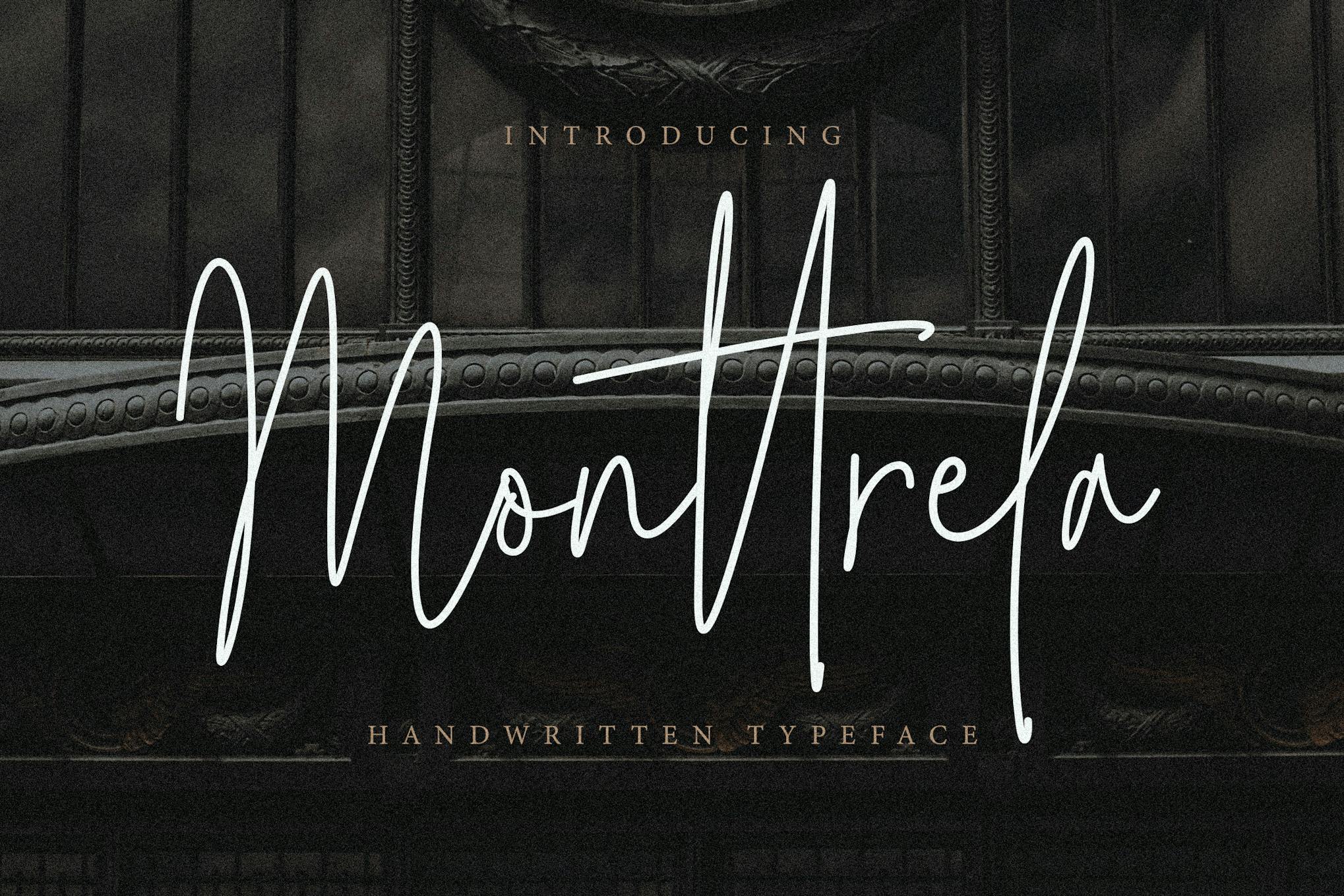
Monttrela Handwritten Wedding Font
The Monttrela Handwritten Wedding Font excels in personal design applications including intimate wedding invitations, handwritten bridal branding, personal ceremony logos, handcrafted product packaging, intimate business cards, personal portfolios, handwritten greeting cards, personal social media graphics, intimate event signage, and handcrafted marketing materials. Its handwritten style makes it perfect for projects requiring personal elegance that communicates intimacy and establishes handcrafted brand positioning with audiences seeking personal wedding experiences and handwritten sophistication.
What makes the Monttrela Handwritten Wedding Font truly exciting is its exceptional ability to capture the personal beauty and intimate charm of handwritten weddings through lovingly crafted letterforms. The font features flowing, handwritten strokes with personal flourishes and intimate proportions that create a distinctly personal appearance. Each character displays remarkable attention to handwritten detail with intimate curves, personal connections, and handcrafted spacing that give text a beautifully personal, hand-lettered quality. The font's handwritten character and intimate rhythm create an atmosphere of personal elegance while maintaining handcrafted sophistication and wedding authenticity.
The Monttrela Handwritten Wedding Font family typically includes regular weight with extensive character coverage, featuring uppercase and lowercase letters, numerals, punctuation marks, and international characters. The typeface often incorporates stylistic alternates, contextual ligatures, and handwritten swashes that enhance its signature intimacy. These additional elements provide designers with creative flexibility to customize text appearance and achieve more natural-looking personal handwriting that reflects the font's intimate and handcrafted character.
This personal signature font distinguishes itself through its remarkable balance of handwritten charm and sophisticated elegance. Unlike impersonal or digital fonts that lack intimate appeal, Monttrela Handwritten Wedding Font embraces the power of personal design to create authentic connections with handwritten wedding audiences. The font's intimate character makes it essential for personal wedding planners, handwritten brands, and intimate celebration businesses where creating personal wedding experiences and handcrafted memories is fundamental to success in intimate wedding markets.